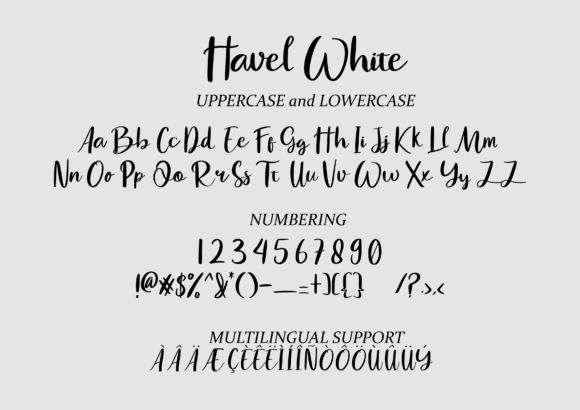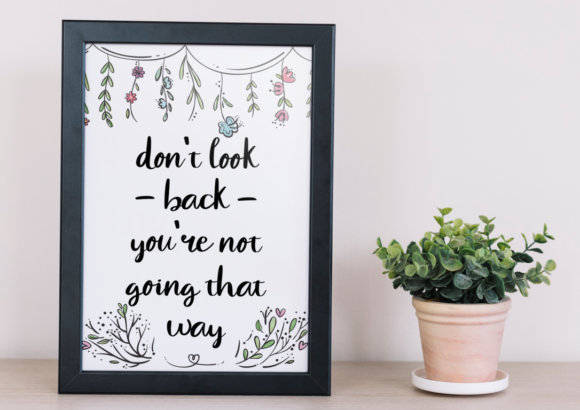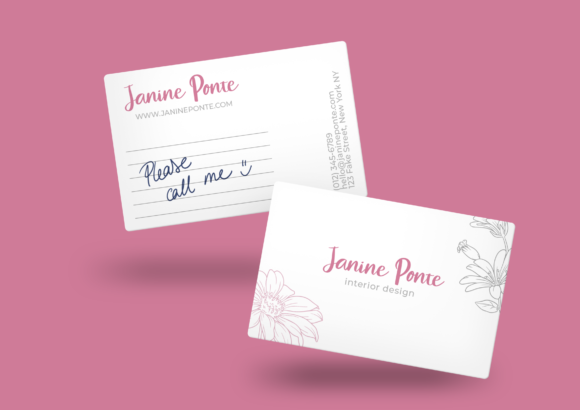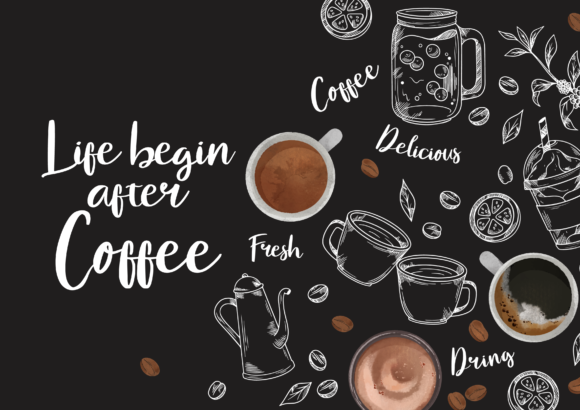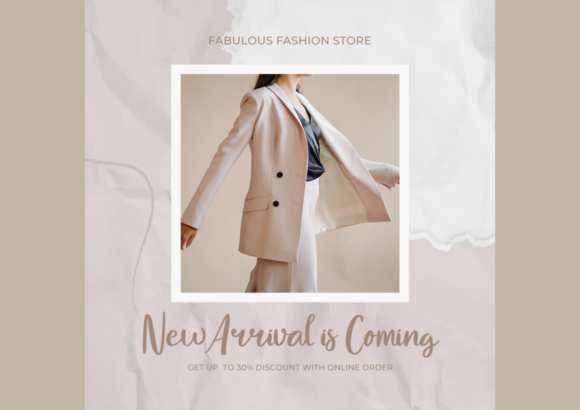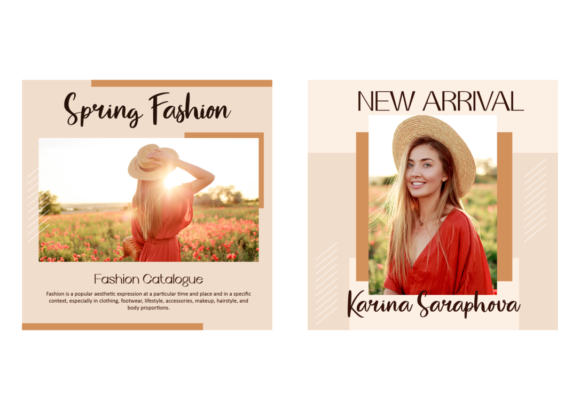
Havel White Font: Elevate Your Designs with Sophistication and Elegance
In the world of typography, a font can make or break a design. For those seeking a touch of sophistication and elegance, Havel White Font is an exceptional choice. This chic, refined script font is designed to add a level of luxury to any project, making it perfect for designers and crafters looking to elevate their work.
The Essence of Havel White Font
Havel White Font is more than just a typeface; it’s an experience. Its stylish alternates and ligatures are meticulously crafted to provide a seamless and luxurious feel to your designs. Whether you’re working on a branding project, a wedding invitation, or a high-end product label, Havel White ensures that your typography stands out with elegance and poise.
Key Features of Havel White Font
- Stylish Alternates: Havel White offers a range of stylish alternates that allow you to customize your text. These alternates can be used to create a unique look for your headings, subheadings, or any text you want to highlight.
- Ligatures: The font includes ligatures, which are special characters that combine two or more letters into one glyph. Ligatures in Havel White add a touch of sophistication and fluidity to your text, making it more readable and aesthetically pleasing.
- Elegant and Refined: The overall design of Havel White is elegant and refined, making it suitable for projects that require a high level of sophistication. Its clean lines and beautiful curves ensure that your text looks polished and professional.
- Versatile: Havel White is incredibly versatile. It can be used for a variety of projects, from luxury branding and packaging to wedding invitations and editorial design.
Who Can Benefit from Havel White Font?
Havel White Font is an excellent choice for a wide range of designers and crafters, including:
- Graphic Designers: If you’re working on branding projects, Havel White can add a touch of elegance and sophistication to your designs.
- Wedding Planners and Stylists: For those in the wedding industry, Havel White is perfect for creating beautiful wedding invitations, menus, and other stationery.
- Packaging Designers: If you’re involved in packaging design, Havel White can elevate your product labels and packaging to look more luxurious and high-end.
- Stationery and Journal Designers: For designers creating stationery, journals, or planners, Havel White offers a stylish and refined look that will make your products stand out.
Tips for Using Havel White Font Effectively
To get the most out of Havel White Font, consider the following tips:
- Pair with Simple Fonts: For maximum impact, pair Havel White with simpler fonts for body text. This contrast will highlight the elegance of Havel White and ensure readability.
- Experiment with Alternates and Ligatures: Don’t be afraid to experiment with the alternates and ligatures available in Havel White. These features can add a unique touch to your designs.
- Adjust Letter Spacing: For headings or important text, consider adjusting the letter spacing to enhance the luxurious feel of Havel White.
Havel White Font is a powerful tool for designers and crafters looking to add a touch of sophistication and elegance to their projects. Its stylish alternates, ligatures, and refined design make it the perfect match for any project that demands luxury and poise. By incorporating Havel White into your typography, you can ensure that your designs stand out with elegance and professionalism.
Whether you’re a seasoned designer or a crafty DIY enthusiast, Havel White Font is ready to elevate your work to new heights. Explore the possibilities of Havel White today and discover how this chic, refined script font can transform your designs into masterpieces of elegance and sophistication.